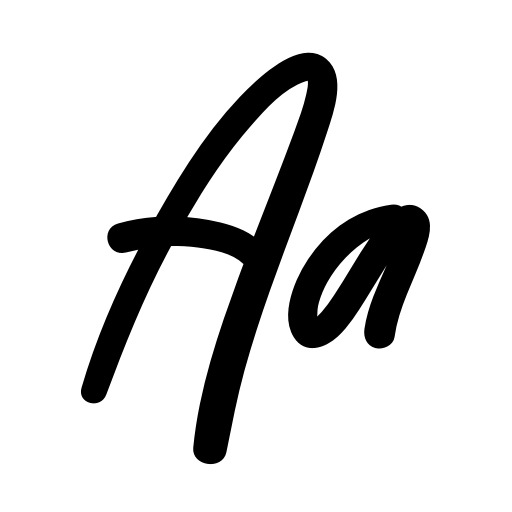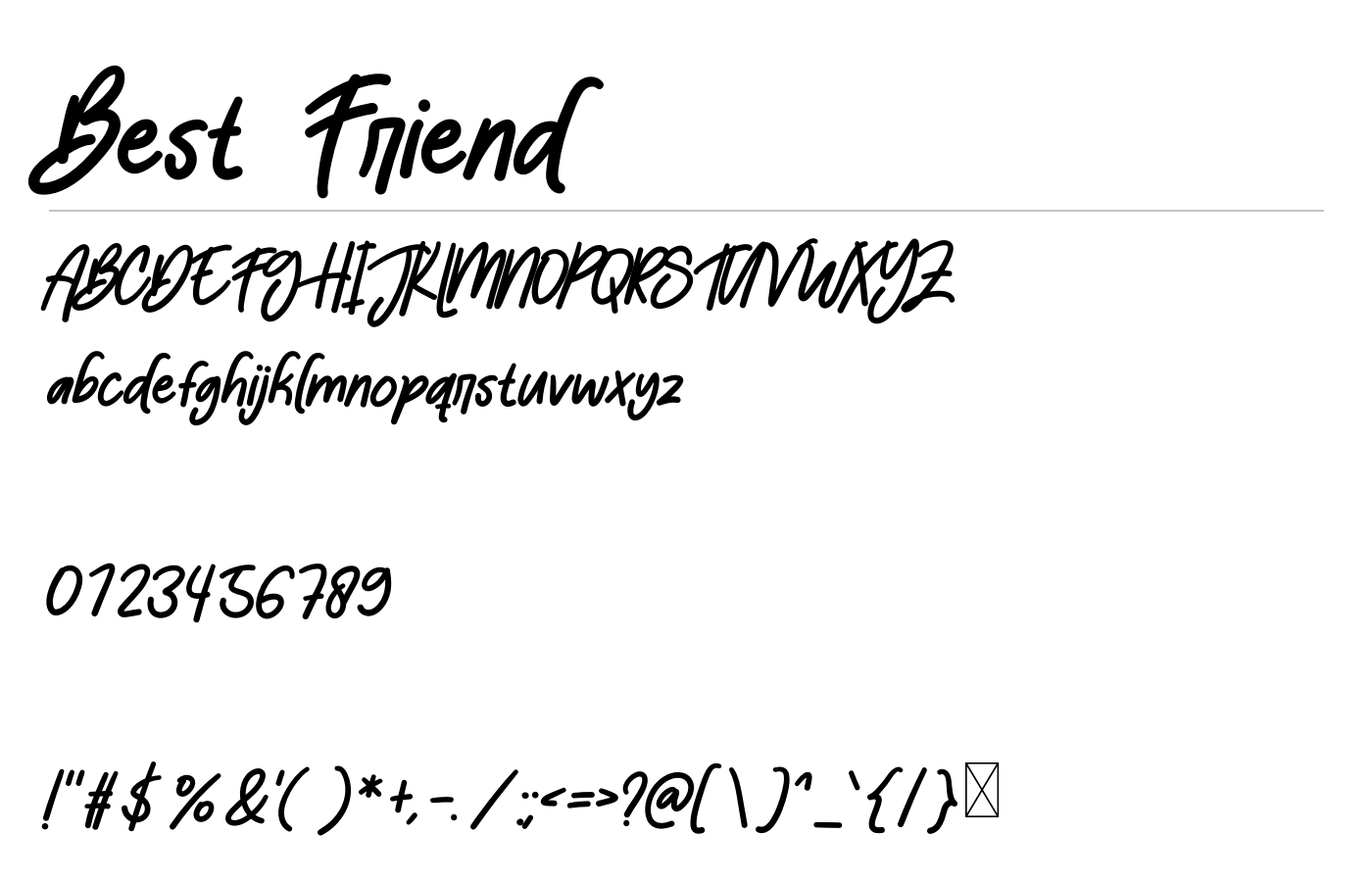
Best Friend is a lively, casual script font with a hand-drawn feel, featuring smooth, slightly condensed letterforms and a natural, flowing style. Its playful yet clean strokes make it perfect for projects that want to convey warmth, friendliness, and personal touch, such as invitations, branding for creative businesses, and informal headlines where a handwritten vibe is desired.
Best Friend Font
About Best Friend Font
| Font family | Best Friend Font |